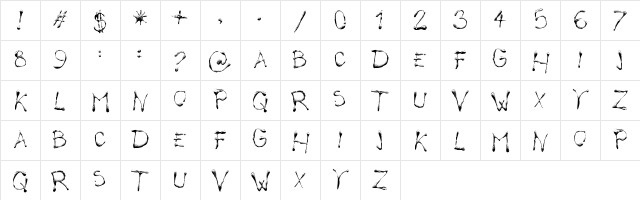
Calliope fun Regular Free Font
Calliope fun Regular
Foundry: cruzine
Designer: cruzine
Design Context for Calliope fun
Calliope fun has an approachable, lighthearted character - its loose, expressive forms are well-suited to children's content, casual branding, and fun-first design.
Font Pairing: Pairs well with a rounded or humanist sans for body copy, maintaining the friendly tone without relying on Calliope fun to carry extended reading.
Pro Tip: Use Calliope fun at larger display sizes where its expressive character can land. Pair with a clean, simple sans for body copy to maintain readability.